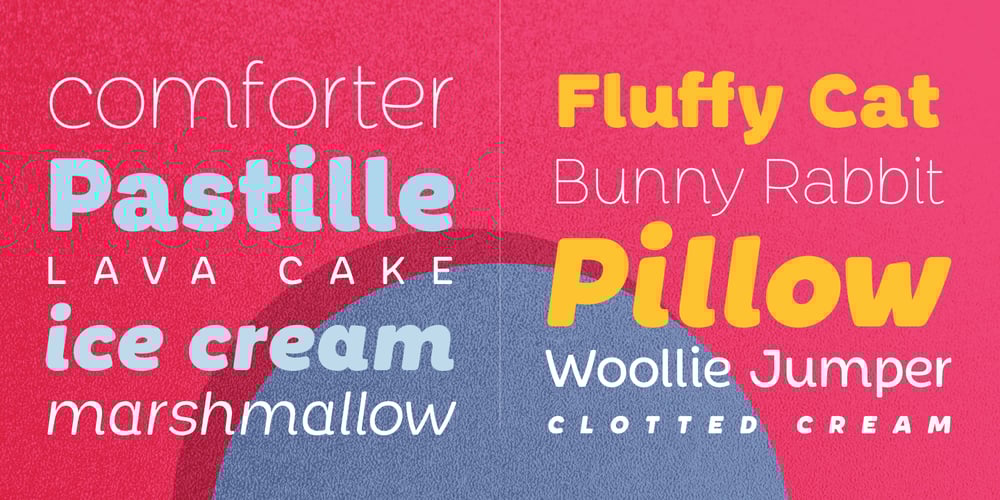
Chopsee Softee
Chopsee Softee font
Chopsee Softee Font Family was designed by Dan Jones and published by TypeUnion. Chopsee Softee contains 16 styles and family package options. Chopsee Softee is the marshmallowy version of our 2017 release Chopsee. It’s fun and curvaceous and comes in 8 weights with matching italics. Just like Chopsee the soft version maintains the fluidity and movement with the accentuated curves and terminals, but with added fun and freedom. Chopsee Softee is perfect font for packaging to branding and everything in between.